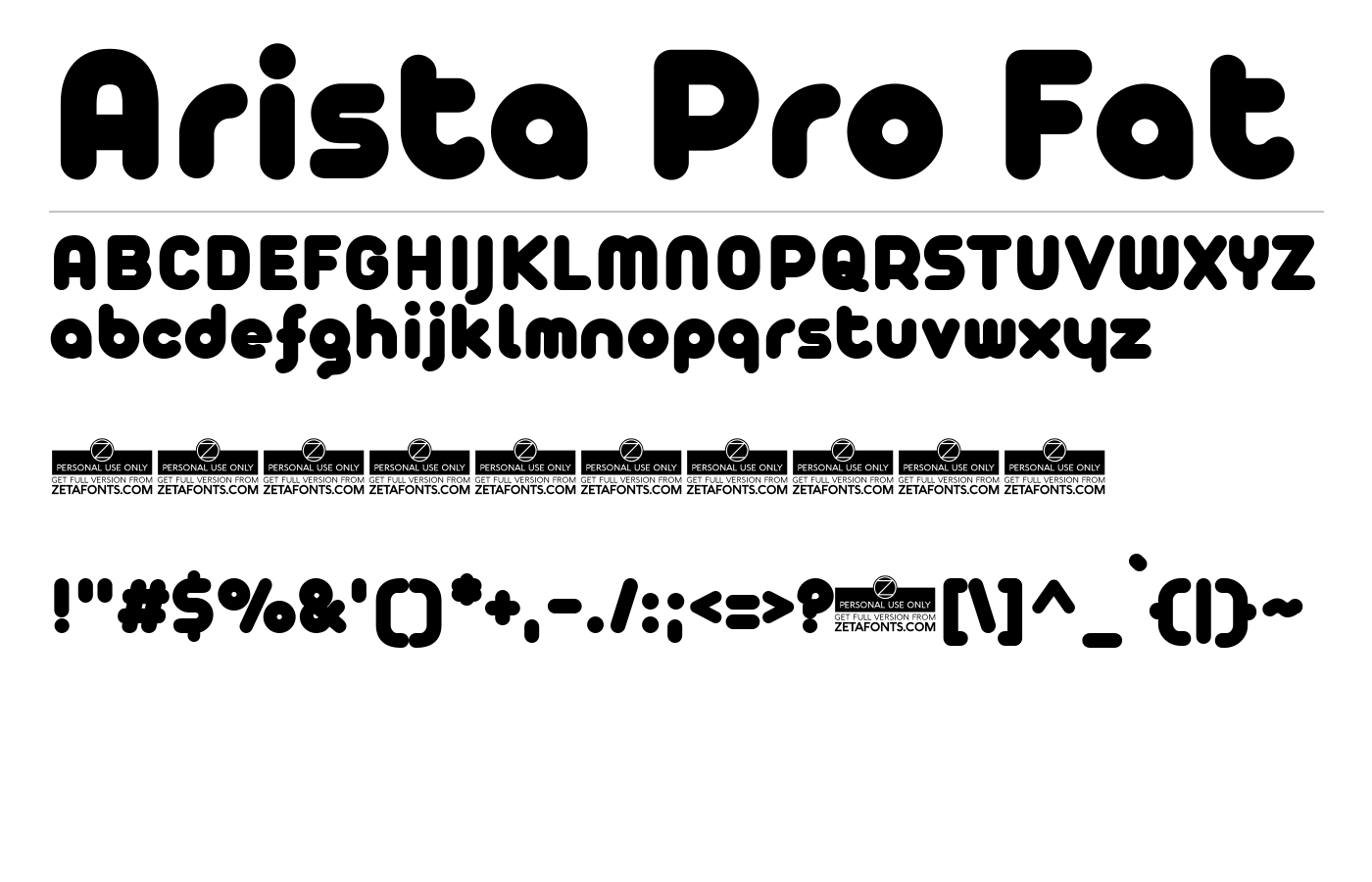
Arista Pro Fat is a bold, playful sans-serif font with rounded edges and a chunky, friendly appearance. Its uniform stroke weight and curved letterforms give it a warm, approachable feel, making it perfect for logos, children’s products, and casual branding that needs to stand out with charm and simplicity. This font’s clear readability and modern style also make it suitable for headlines and eye-catching display uses in both print and digital media.
Arista Pro Fat Font
About Arista Pro Fat Font
| Designer | Francesco Canovaro |